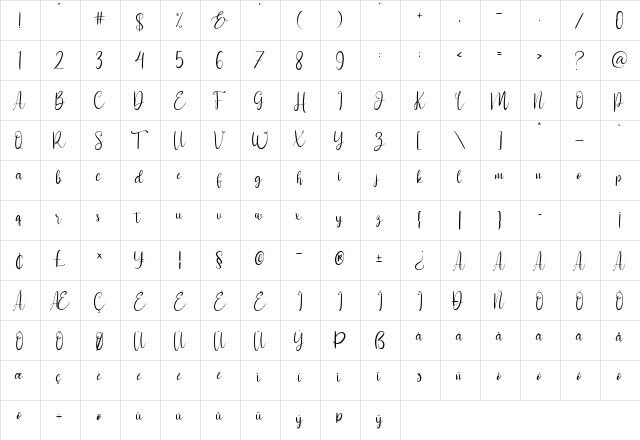
Milli Nathan Regular
Design Context for Milli Nathan Typeface
Milli Nathan is a composed and adaptable typeface that performs quietly and consistently across a wide range of design contexts.